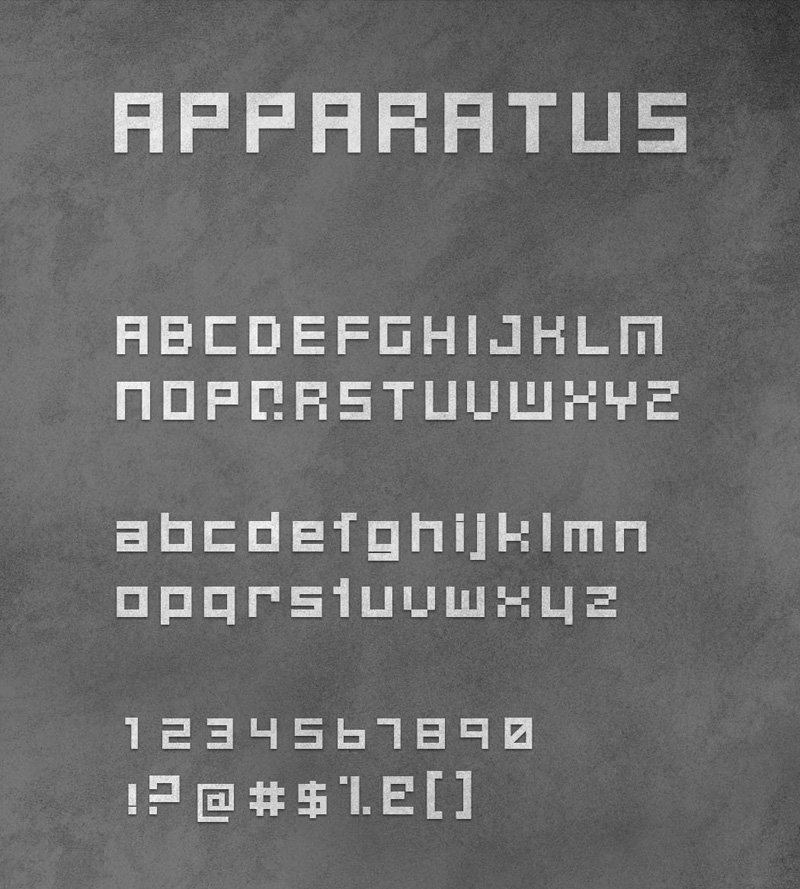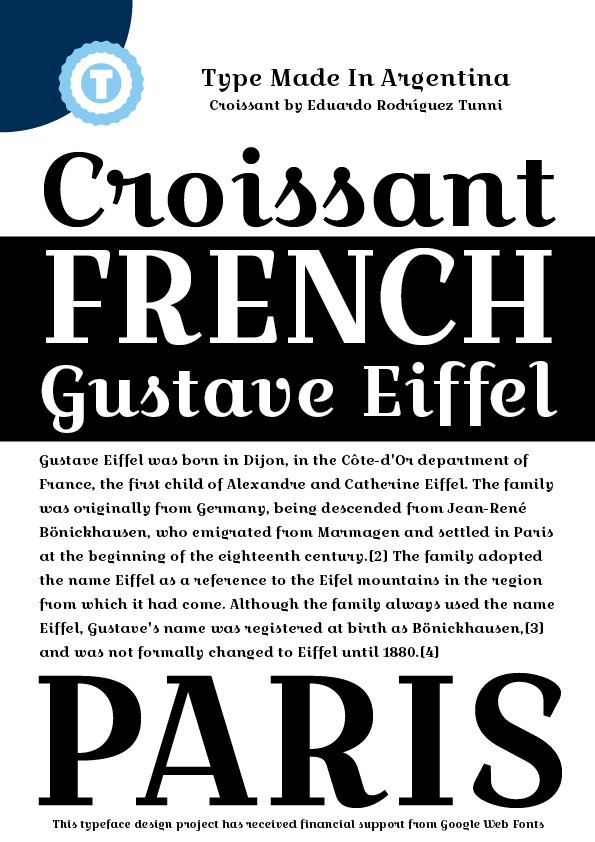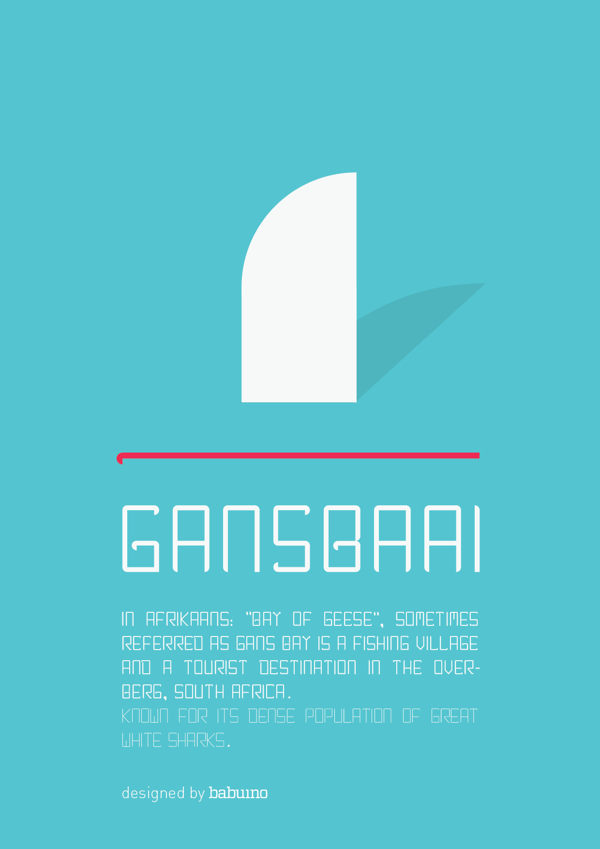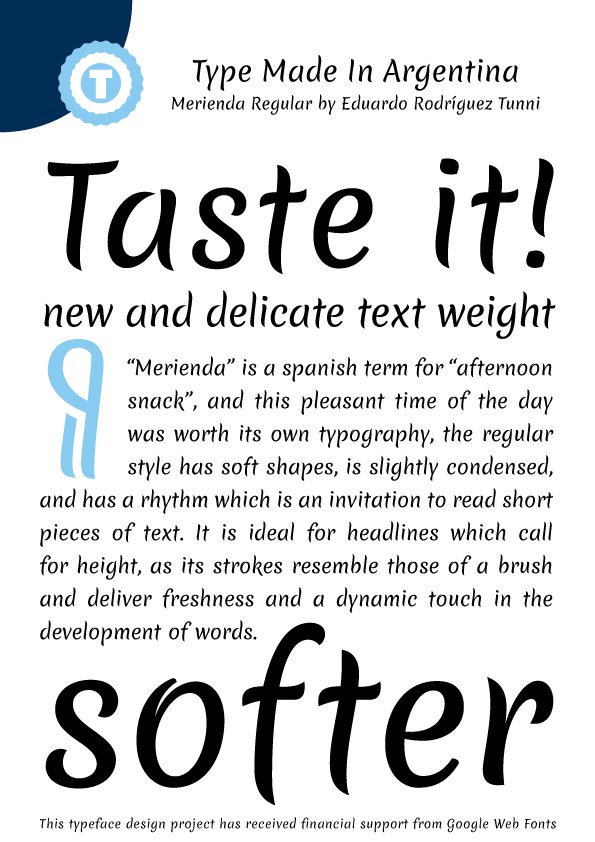
Gansbaai
Author: Babuino
Description: “This typography was inspired by sharks and its unique fin shape. This typo family has two weights: regular and light, also supports central, eastern and western european languages.”
Apparatus
Author: DSGN.co
Description: “Apparatus is a font based on a modified and modernized version of a pixel-type font from early 1980’s computer scripting typeface.”
Croissant One
Author: Eduardo Tunni
Description: Croissant One is a nice curvy font very suitable for headings.
Download FontMerienda
Author: Eduardo Tunni
Description: Merienda is another curvy font, but a bit more soft compared to Croissant One.